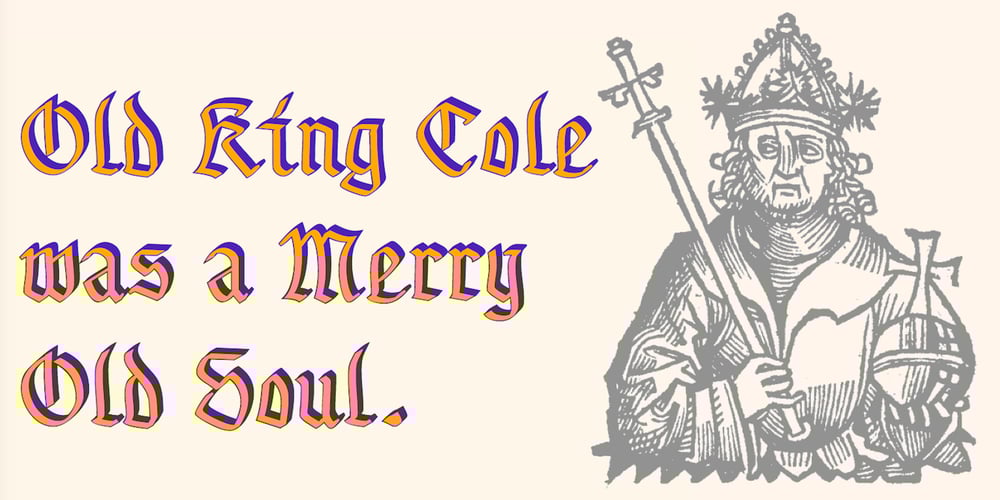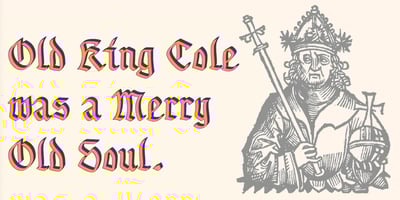
Gothamburg
Gothamburg font
Gothamburg Font Family was designed by Robert Schenk and published by Ingrimayne Type. Gothamburg contains 4 styles and family package options. Gothamburg is a blackletter or square gothic face. The shapes of many of the letters were inspired by sets of letters in Oscar Ogg’s The 26 Letters (Thomas Y. Crowell Company, 1963, 1948) illustrating the gothic style of the middle ages. The Plain and Bold versions differ not just in pen width, but also in pen angle. The Plain version has less contrast between the thin and thick strokes. The ShadowedInside style has the letter shapes of the plain style but the spacing of the shadowed style. It can be layered with the shadowed style to easily create two-color lettering.